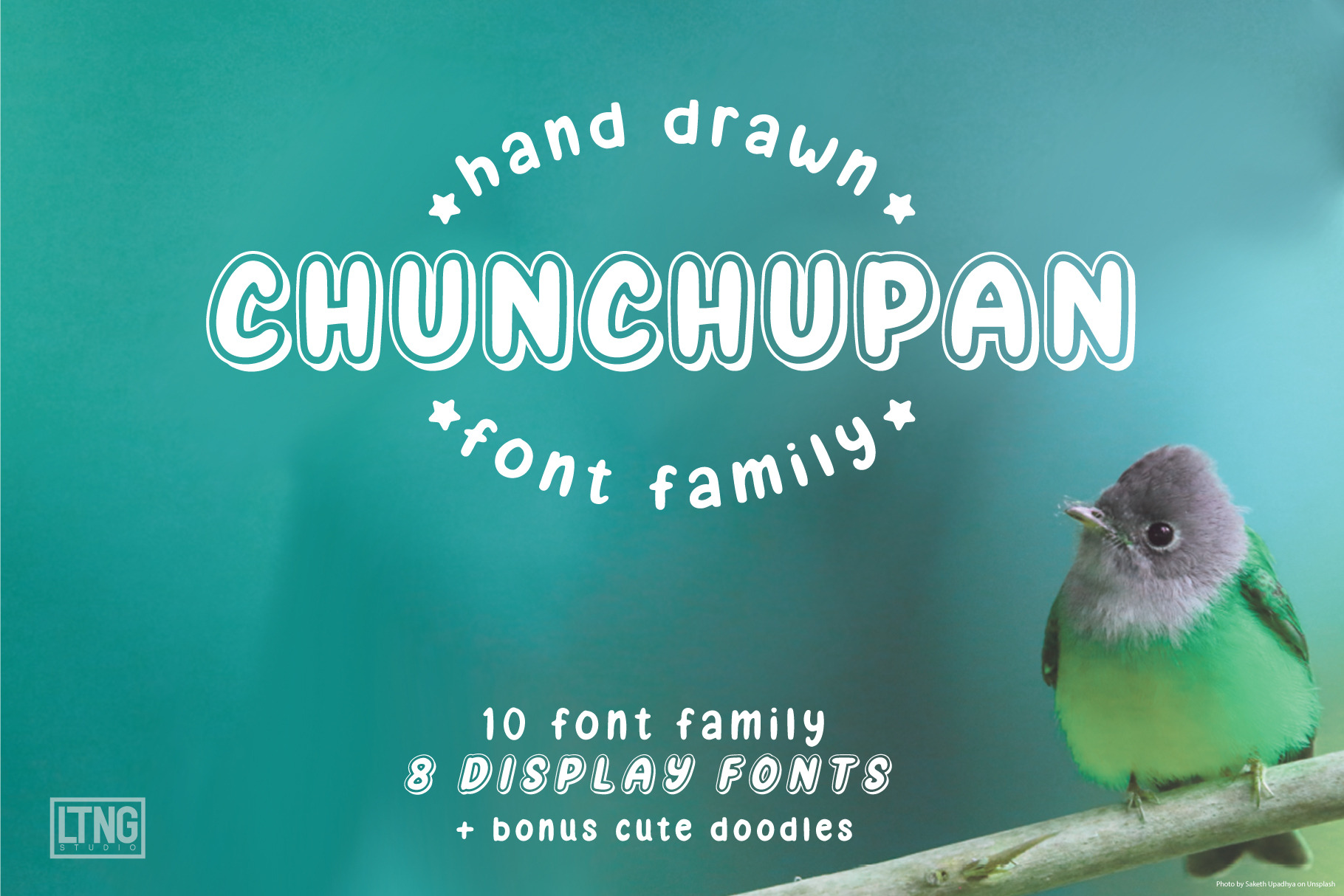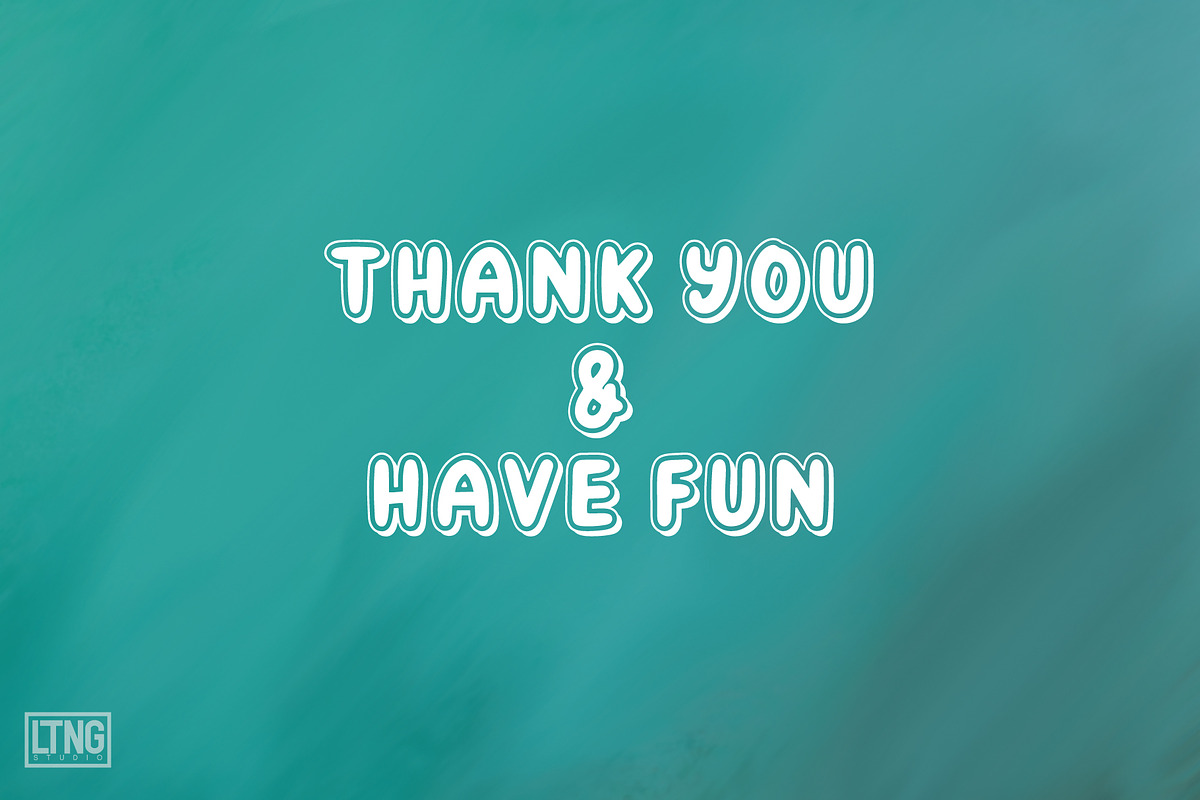
Chunchupan Font Family
Chunchupan Font Family Introducing Chuncupan Font Family is a unique and cute handwriting with bonus cute doodle element. 18 fonts family (8 display fonts) will allow you to make tons of gorgeous typographic design such as DIY projects, greeting cards, labels, quotes, posters, wall art, branding, packaging, websites, logo design, packaging design & photography overlays, signs, and so much more! To add to the creative idea of yours, you will get more then cute doodle elements. See the preview above to get some inspiration on how can you use this font for your projects.
Chunchupan Regular
Chunchupan Italic
Chunchupan Semi Bold
Chunchupan Semi Bold Italic
Chunchupan Bold
Chunchupan Bold Italic
Chunchupan Thin
Chunchupan Thin Italic
Chunchupan Condensed
Chunchupan Condensed Italic
Chunchupan Outline
Chunchupan Outline Italic
Chunchupan Polkadot
Chunchupan Polkadot Italic
Chunchupan Shadow 1
Chunchupan Shadow 1 Italic
Chunchupan Outline
Chunchupan Outline Italic